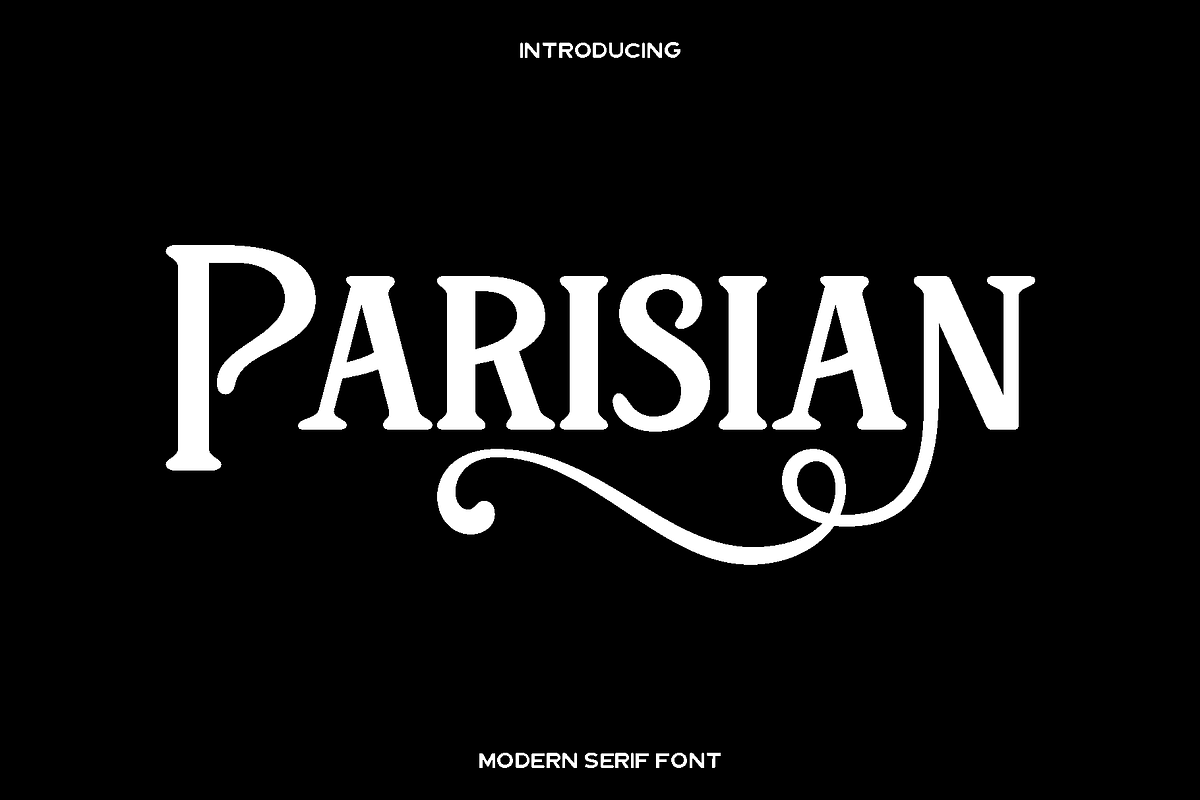
Parisian - Elegant Modern Serif
Parisian is a refined and stylish typeface inspired by the timeless charm and creative spirit of Paris. Designed to feel graceful yet contemporary, Parisian blends classic elegance with modern simplicity, making it a versatile choice for designers who value beauty and clarity. Its balanced letterforms and smooth flow create a sophisticated tone that feels warm, confident, and expressive.
This font shines across a wide range of creative projects. Parisian is perfect for books, magazines, logos, branding systems, photography overlays, quotes, blog headers, posters, and advertising materials. Whether used for editorial headlines or subtle brand typography, it delivers a polished and professional appearance that enhances visual storytelling.
Parisian feels elegant, clean, and inviting. Its functional structure ensures excellent readability while its stylistic details add character and personality. Designed for both print and digital use, Parisian adapts effortlessly to modern layouts and creative compositions, making it a reliable and stylish choice for everyday design needs.
Parisian Font Features:
• Uppercase and lowercase characters
• Numerals and functional glyphs
• Stylistic features
• Multilingual support
Choose Parisian to bring sophistication, clarity, and timeless style to your creative projects.